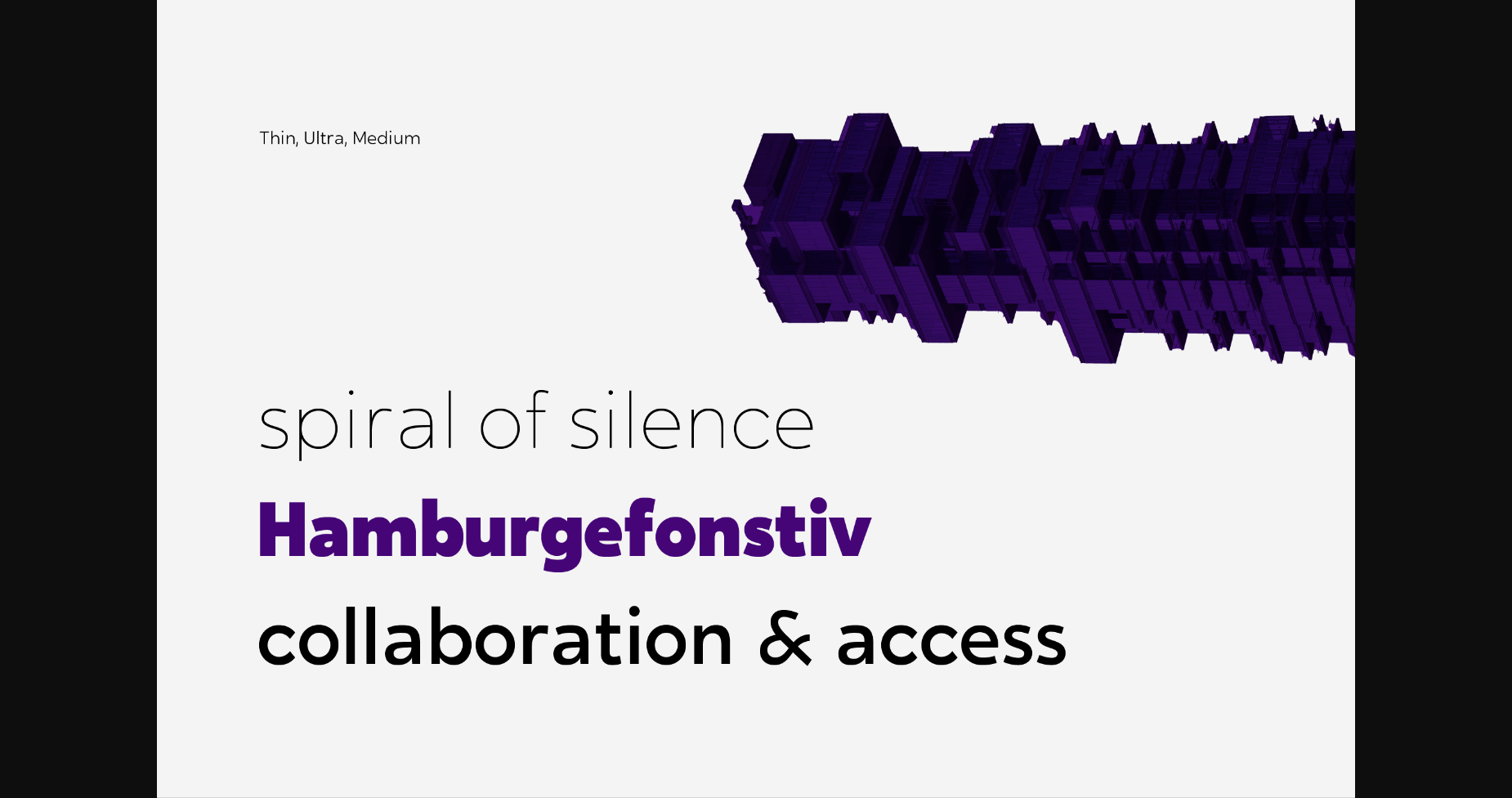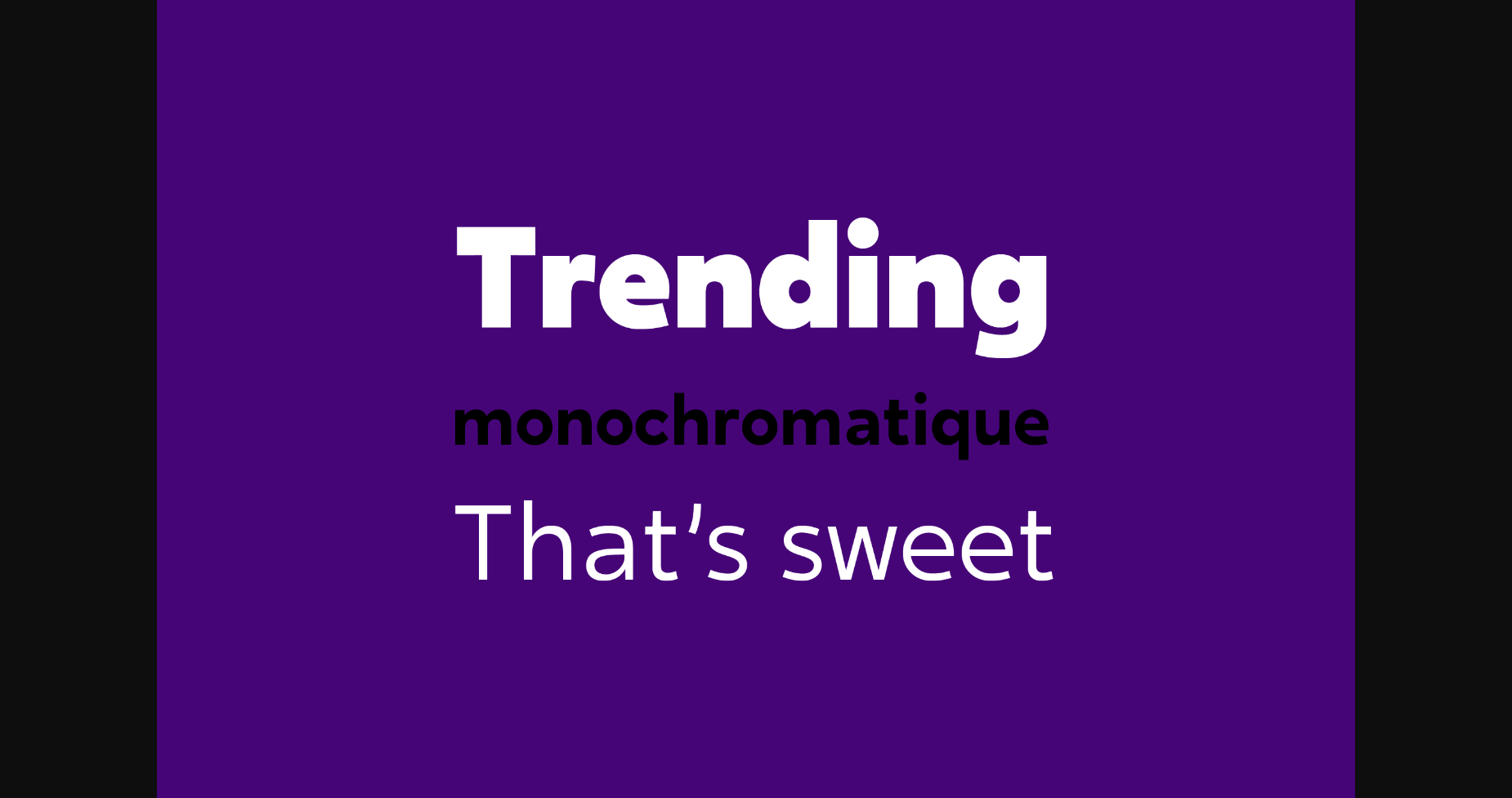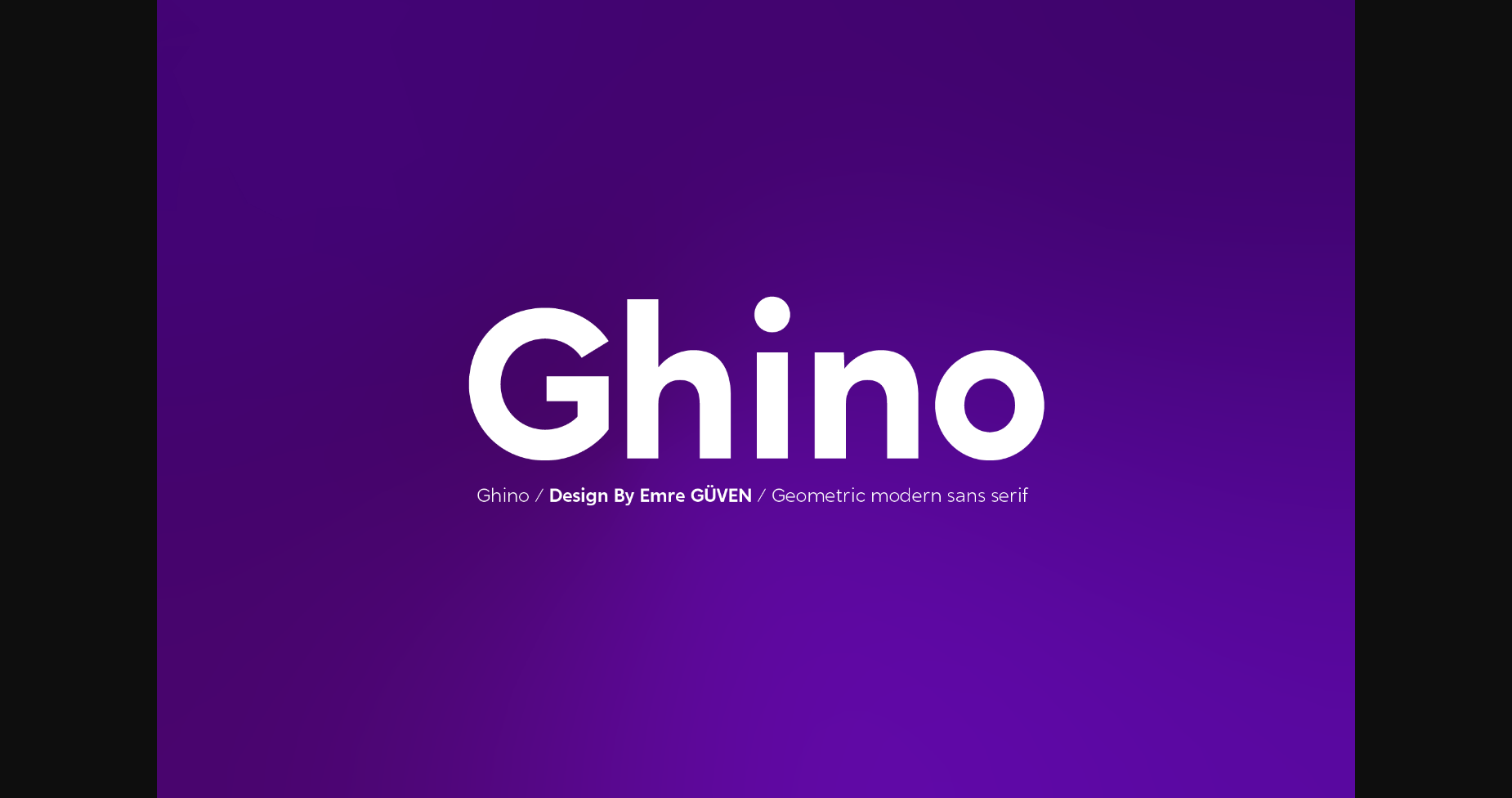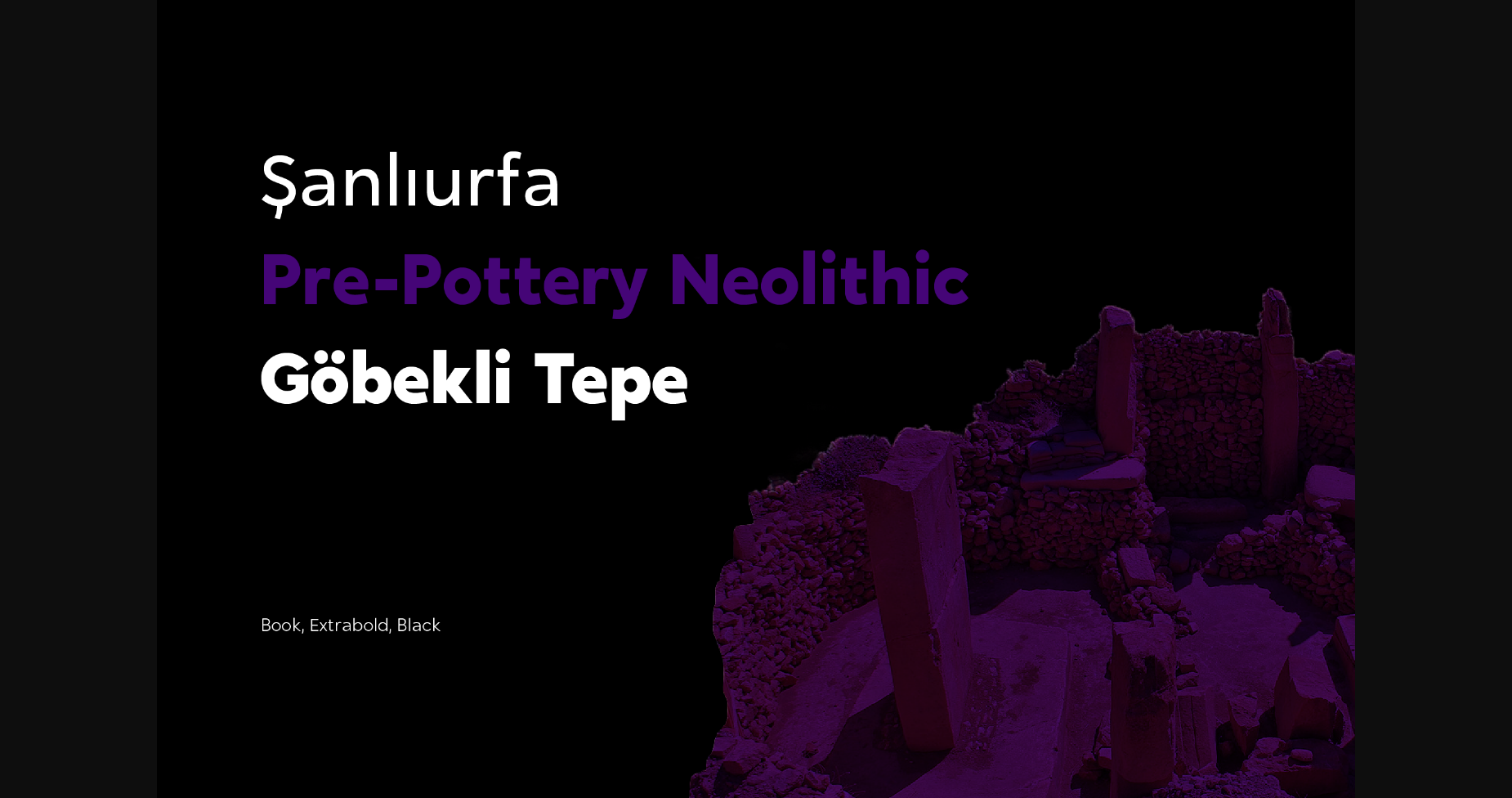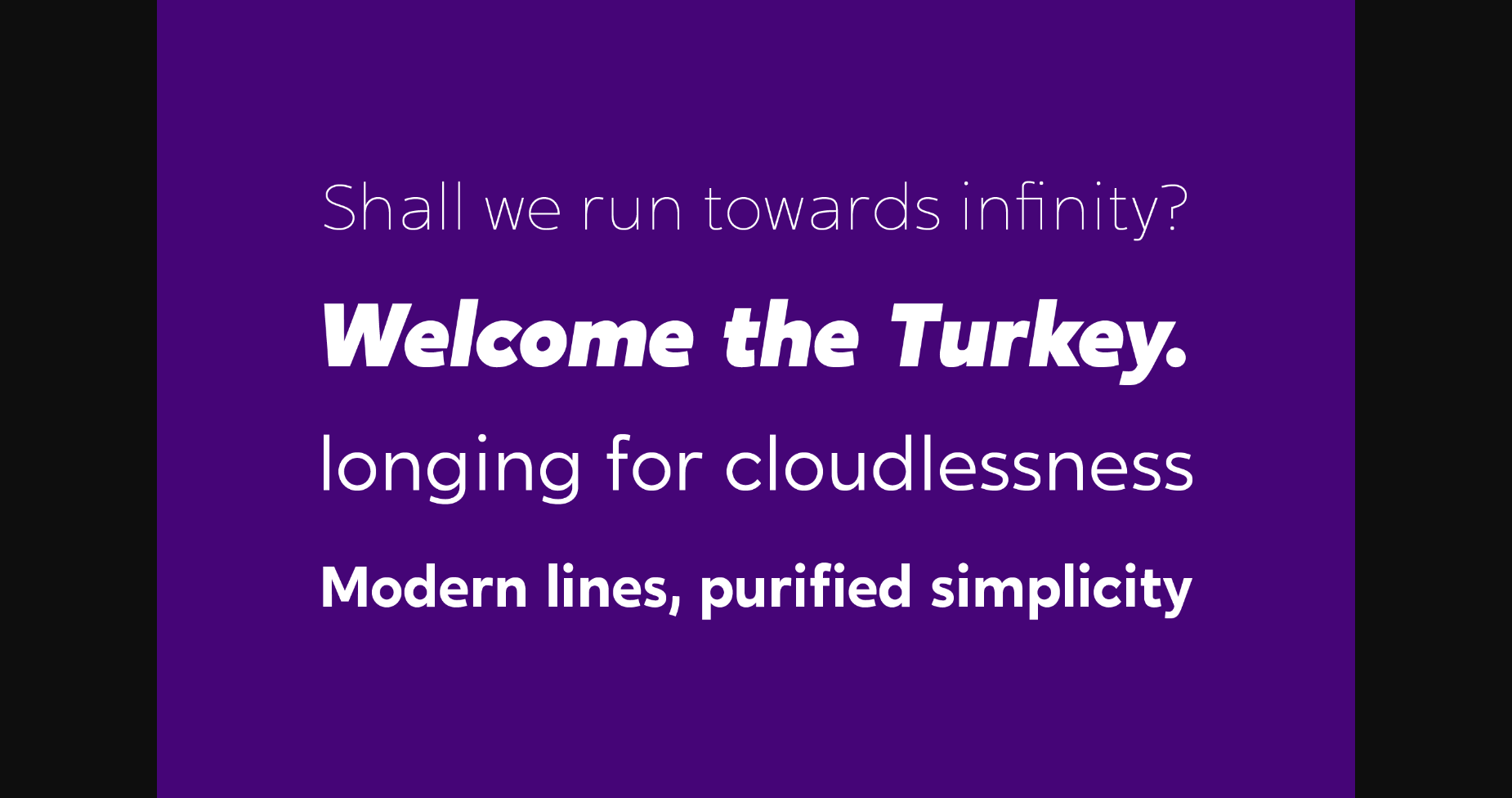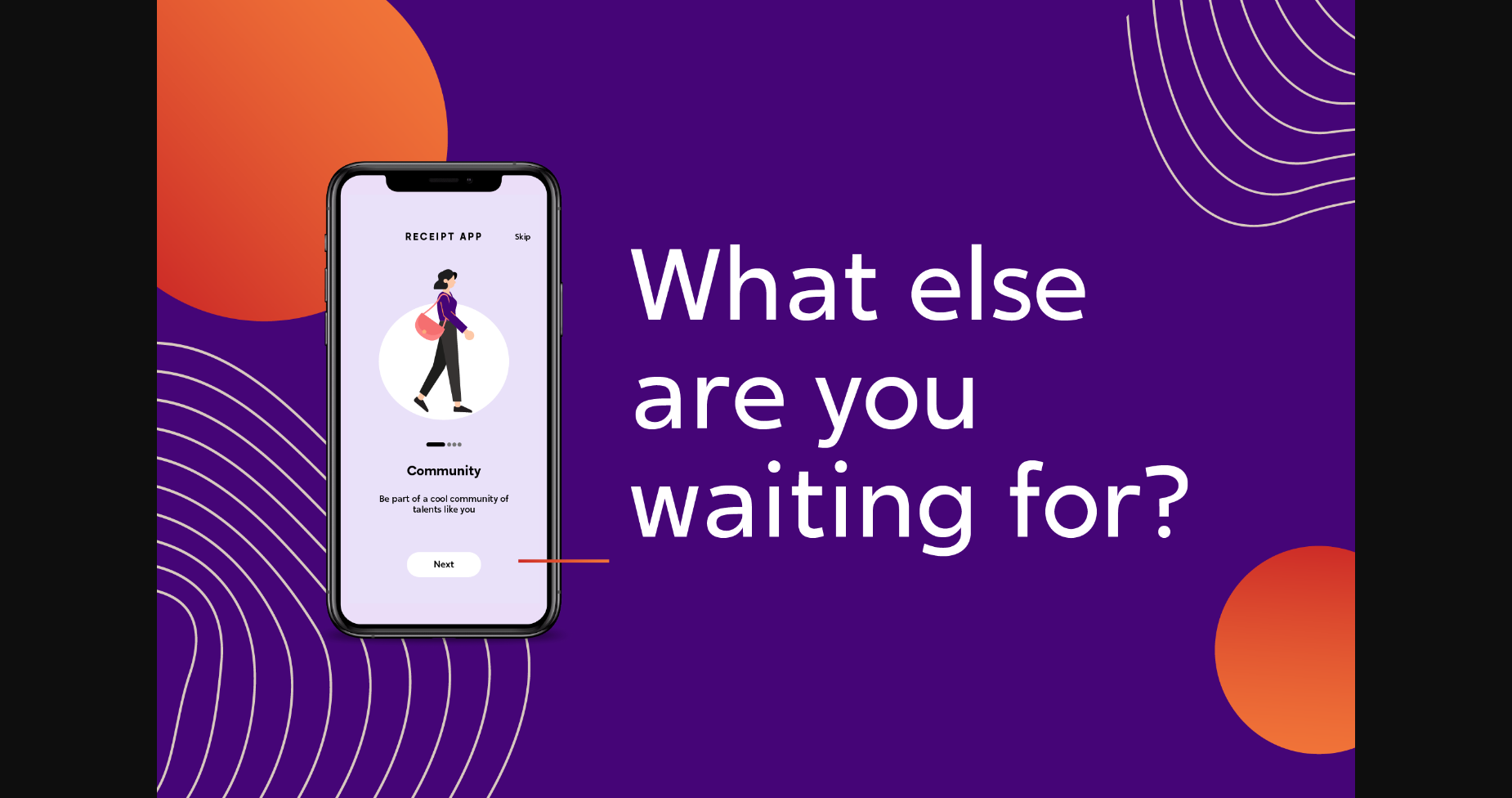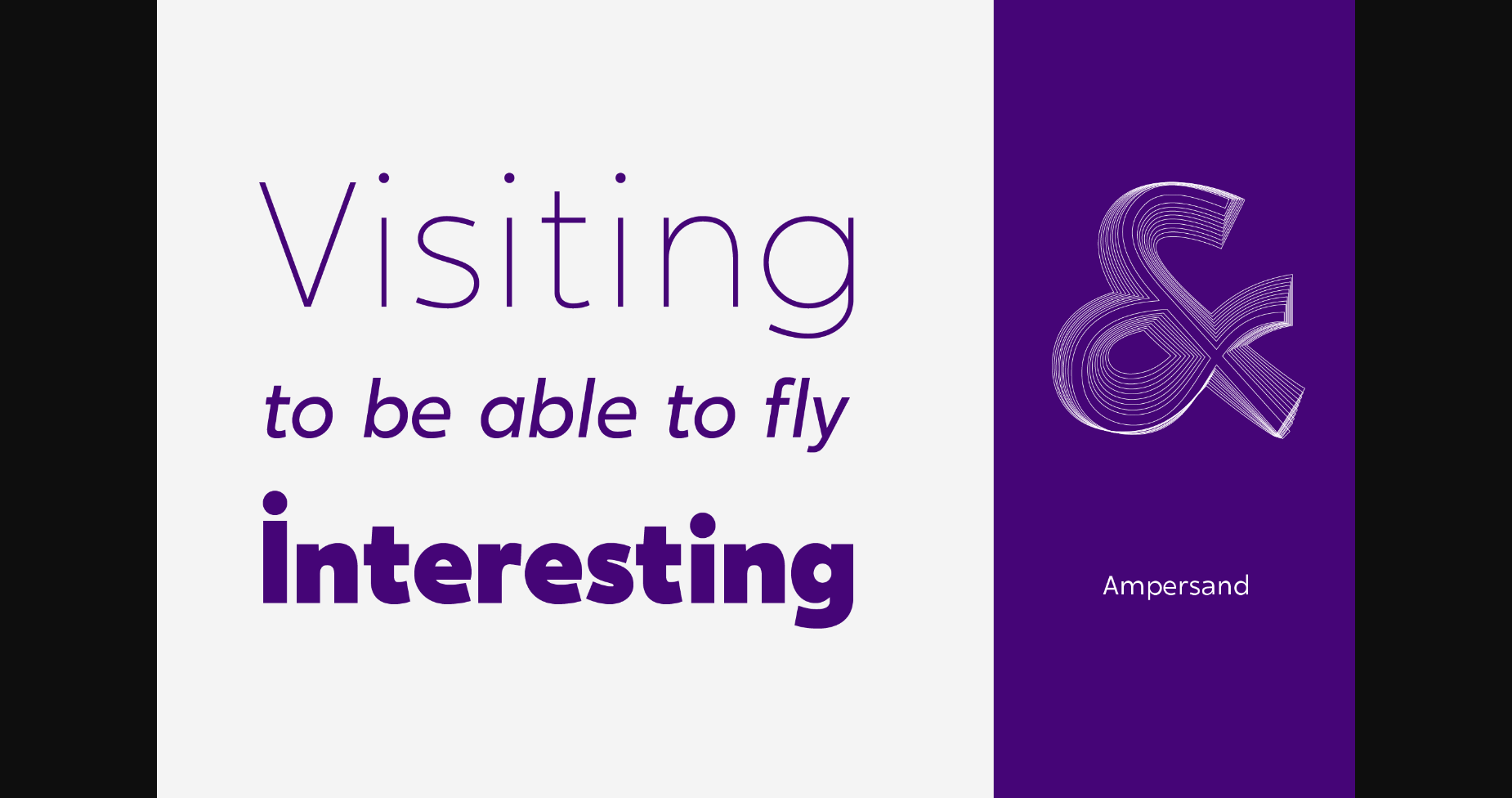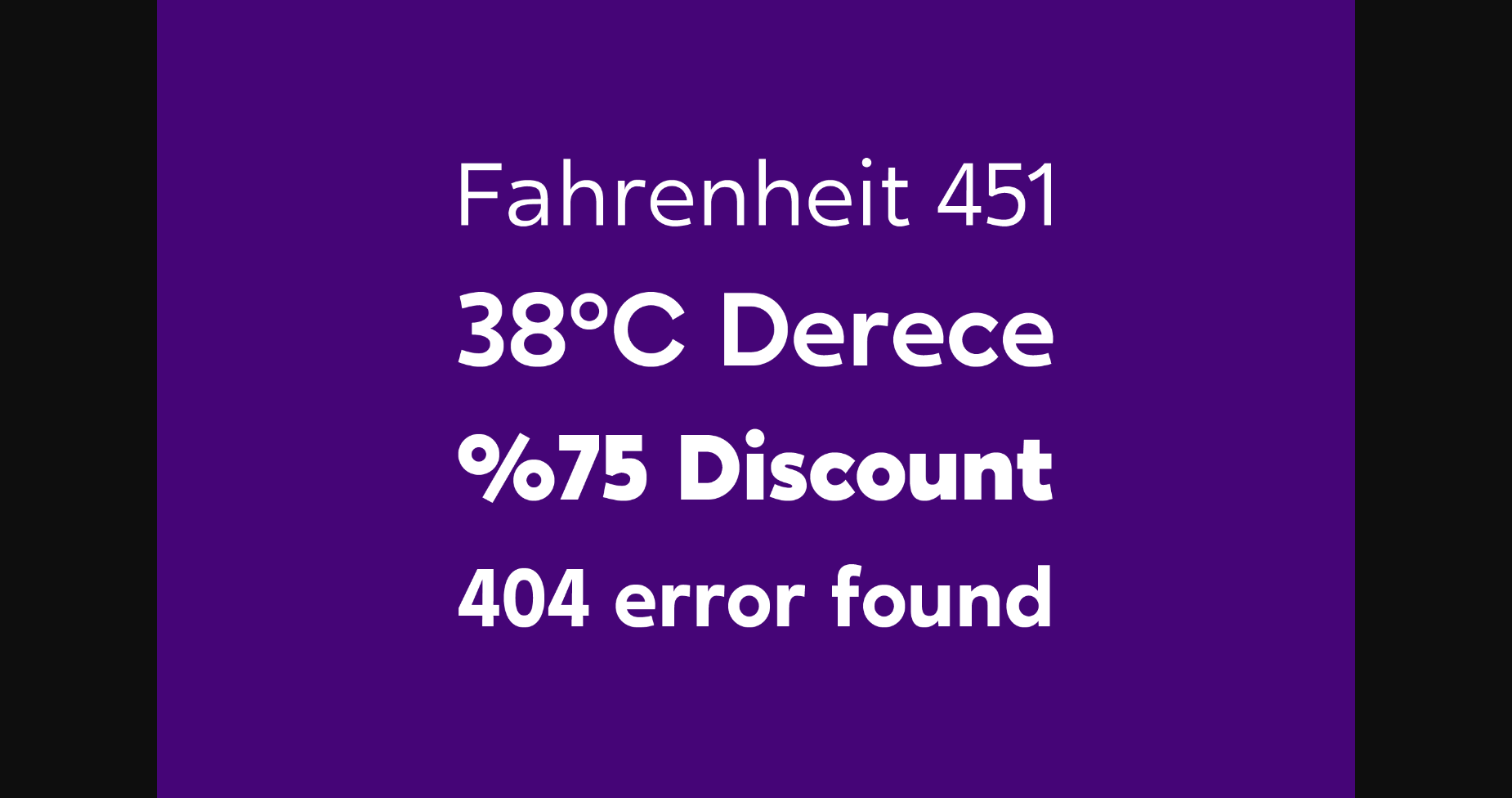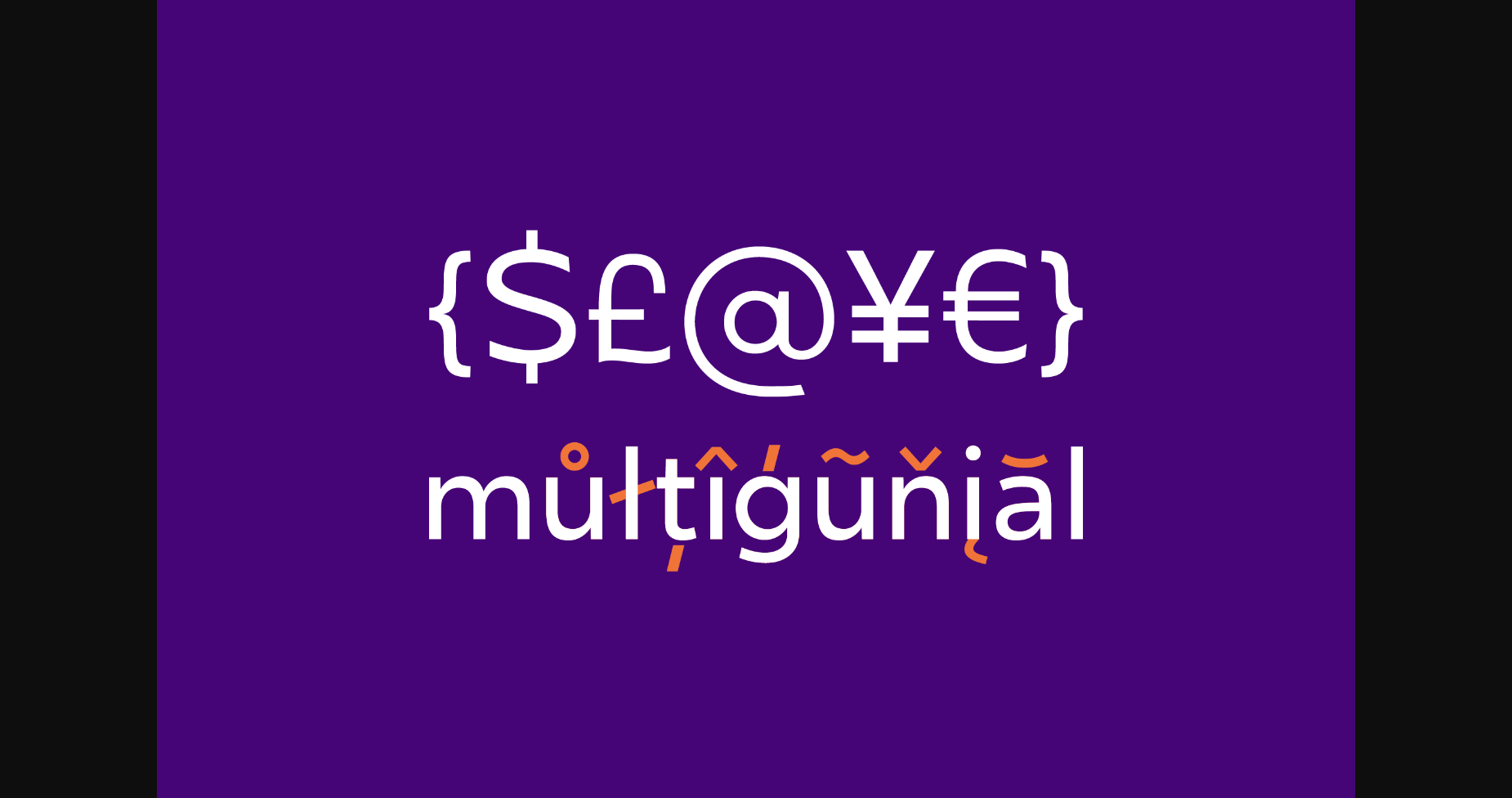
HomeSans Serif FontsGhino Font Sans Serif Fonts Ghino Font FacebookXPinterestWhatsApp 1 of 11 ... Ghino Font Poster 2... Ghino Font Poster 3... Ghino Font Poster 4... Ghino Font Poster 5... Ghino Font Poster 6... Ghino Font Poster 7... Ghino Font Poster 8... Ghino Font Poster 9... Ghino Font Poster 10... Ghino Font Poster 11... About Ghino Font Ghino is a modern and neat sans serif font. It can easily be matched to an incredibly large set of projects, so add it to your creative ideas and notice how it makes them stand out! DOWNLOAD NOW People also explored Christmas Winter Font Helsinki Roseglow Font Knuckle Head Font Alaska Penguin Font Grit Font Esmetralda Font Insiders Font Twin Sisters Font 312 0 TagsGhinoGhino Font Previous articleBaltidore FontNext articleRafine Font LEAVE A REPLY Cancel reply Comment: Please enter your comment! Name:* Please enter your name here Email:* You have entered an incorrect email address! Please enter your email address here Website: Save my name, email, and website in this browser for the next time I comment. Personal Use Free Unlock Endless Creativity with the FREE September Clipart Huge Bundle (Valued at $700!) Personal Use Free Read more about this font Luxima Personal Use Free Read more about this font Kanza Personal Use Free Read more about this font Hubbies Personal Use Free Read more about this font BLOG Fonts That Capture the Spirit of New York City New York City is more than just a place—it’s an experience, a rhythm, a visual language... To increase your work productivity, choose the most readable fonts. Free Fonts Risk: Why Free Fonts Can Be Dangerous for Designers Free vs Paid Fonts: Why Investing in Premium Fonts Is Worth It